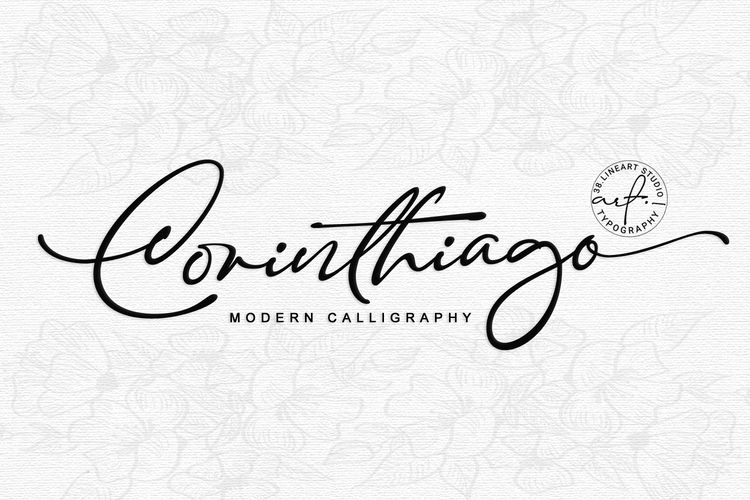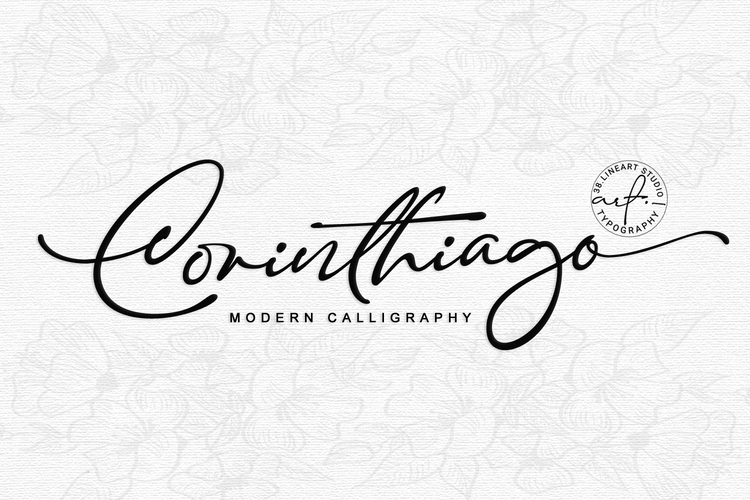
Corinthiago
Corinthiago is a caligraphic font wrapped in signature style, we call it ‘modern Calligraphy’. It includes alternates to help enrich your designs:
1. Titling (titl) alternates, are accents for initial letters. is the first stroke that is long and and slightly curved according to the letters, both lowercase and uppercase.
2. Swash (swsh) alternates, is an accent at the end of a letter, is an additional stroke to end writing.
3. Stylistic alternate (Salt), is an alternative glyph to add style emphasis.
4. Stylistic set (SS), some additional glyphs for design alternatives.
If you use a combination of two lowercase with a combination of tilt and swsh it will produce a harmonic letter that you can use for a logo, no problem also for a logo consisting of more than two letters, all you have to make sure is starts with a titl and ends with swsh.
All glyph alternates (titl, swsh, Salt and SS) are also supported by multiple languages.
Another OpenType that is also very important is Ligature (league), this font consists of 51 Ligatures including:
Abe, Ade, Ale, Ab, Ad, Af, Aj, Ak, Al, Am, An, Ao, Ap, As, Ax, Ay, Az, aa, ar, be, cc, da, de, di, do, du, dy, ee, er, ii, ir, is, le, ll, lt, om, on, oo, op, or, ov, ow, ox, oy, oz, ss, st, th, tl, tt, ur and uu. We continue to see the possibility to update ligatures in the future.
This font is the right choice for a modern design, can be applied to invitations, writing messages in the form of quotes, book and magazine covers, and of course for your brand logo text.